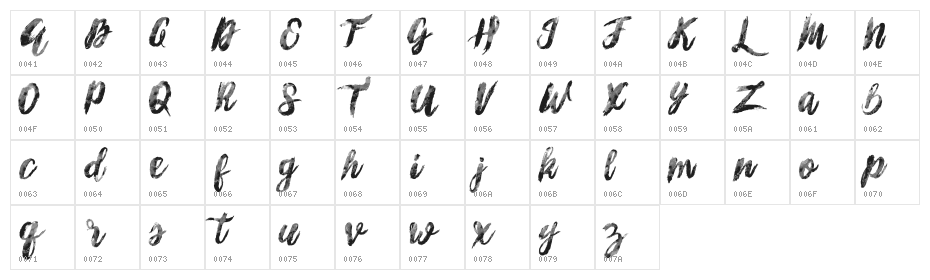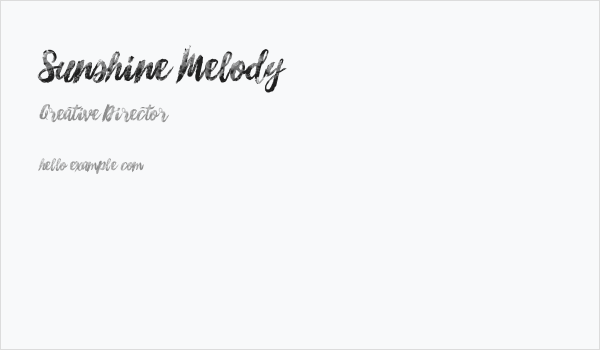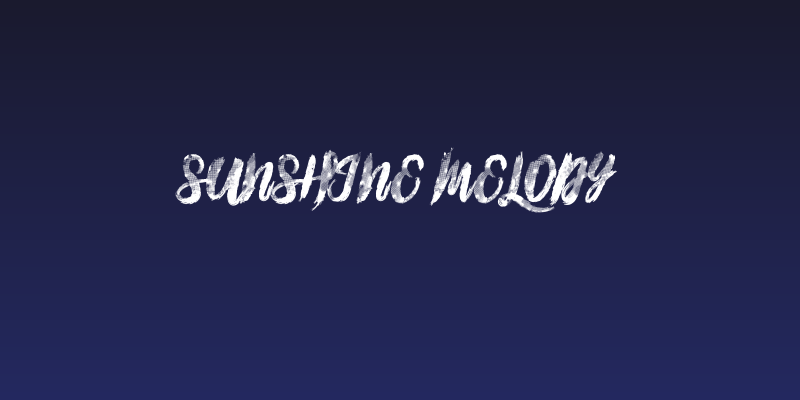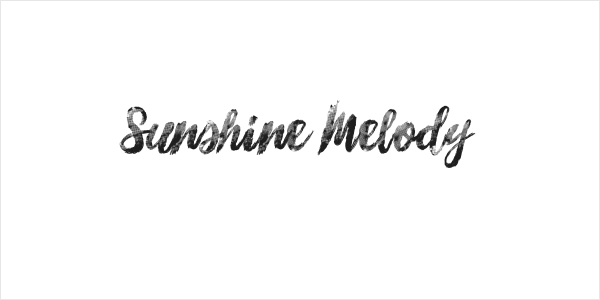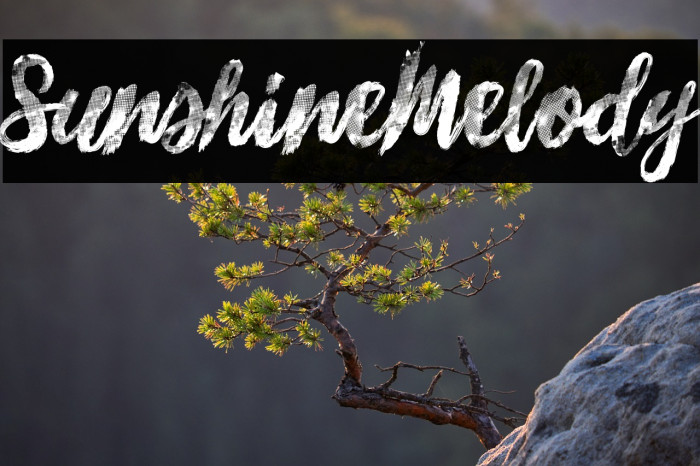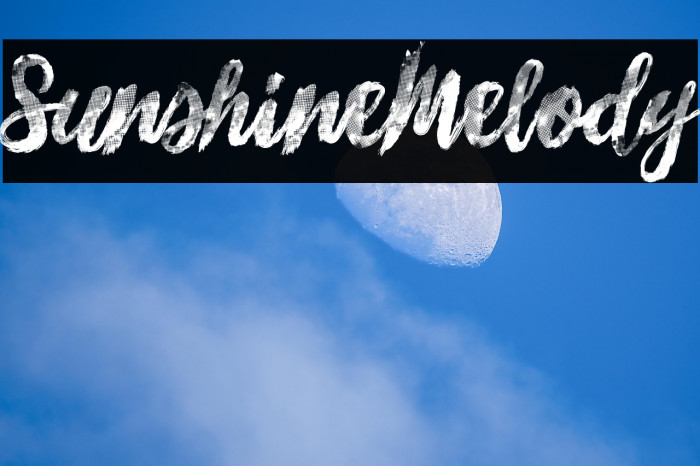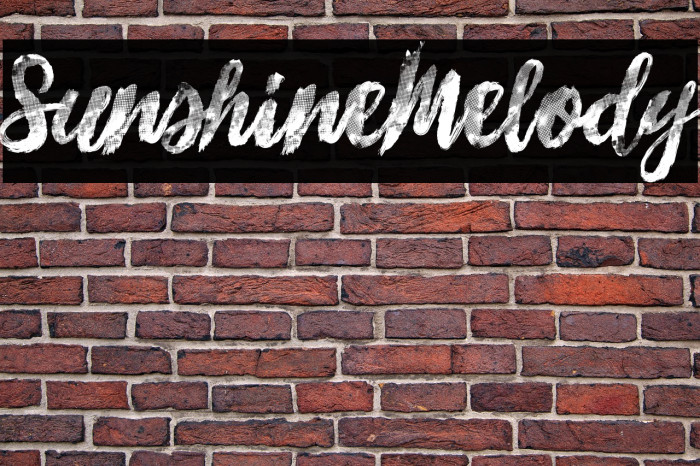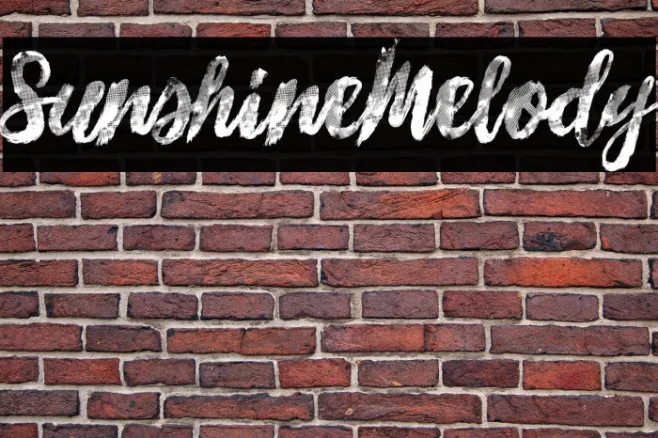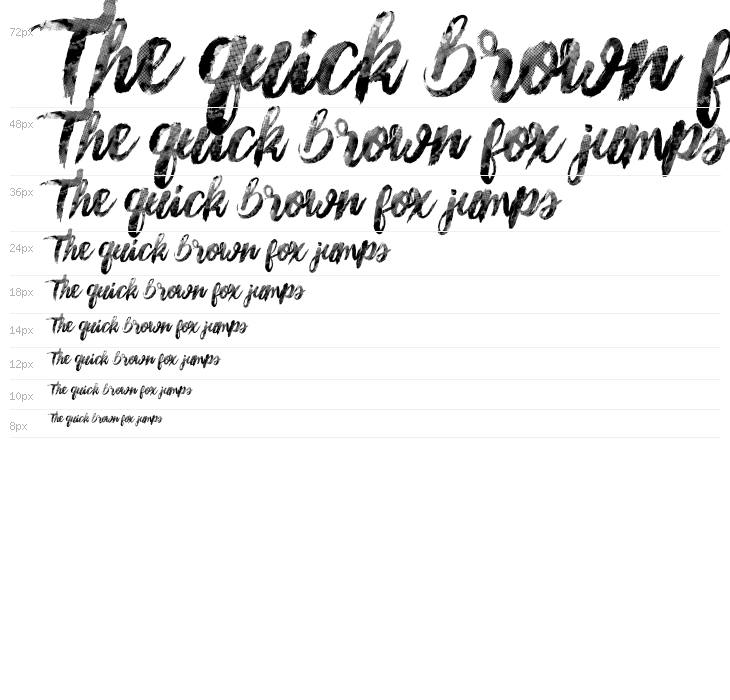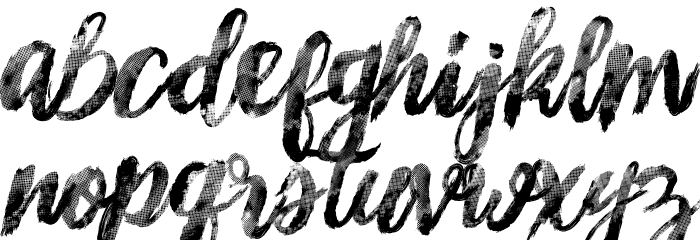
Sunshine_Melody Font
Sunshine_Melody Description
This font features a dynamic and expressive brush script style, characterized by its fluid and energetic strokes. The letters are bold and have a hand-painted appearance, giving them a lively and artistic feel. The uppercase and lowercase letters maintain a consistent flow, with each character seamlessly connecting to the next. The texture of the strokes adds depth and a sense of movement, making it visually striking. The font's organic and spontaneous nature makes it ideal for creative projects that require a personal touch.
| Proposed Projects | Ideal for branding, packaging, invitations, and artistic posters. |